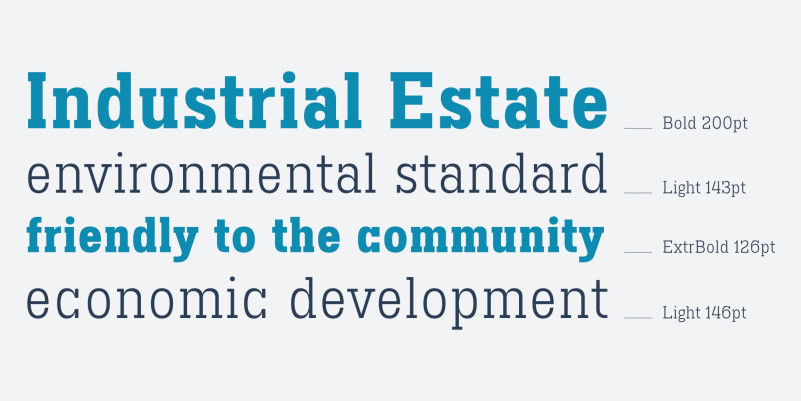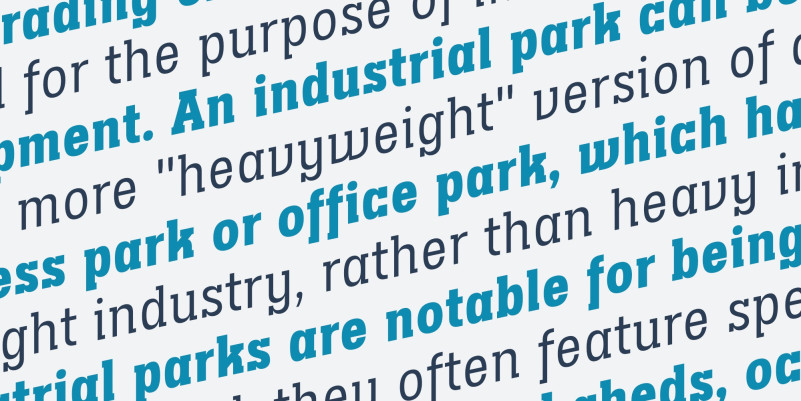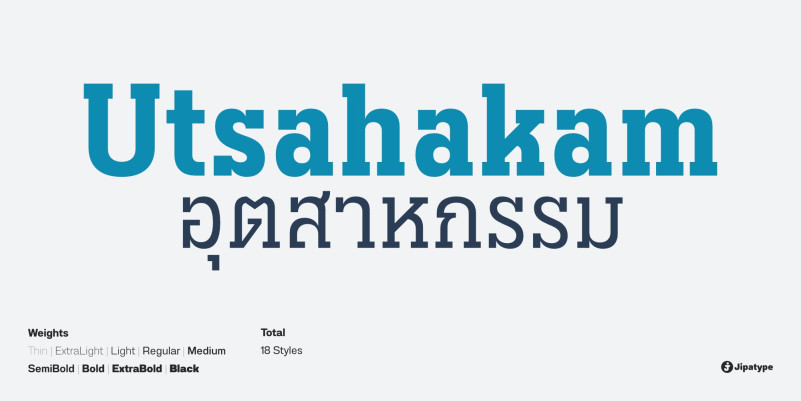
Utsahakam Font
Utsahakam Font is a slab serif typeface that looks strong, solid, and stable. It comes with 9 weights and italics of each weight, for a total of 18 styles. It supports multiple languages, including Vietnamese. It is suitable for headlines or sub-headlines. Utsahakam can help you create a mood and tone of strength, solidity, stability, and reliability for products and services related to machinery, manufacturing factories, mechanical tools, or heavy industry.